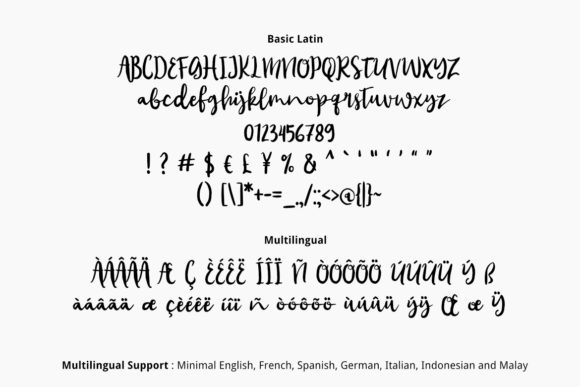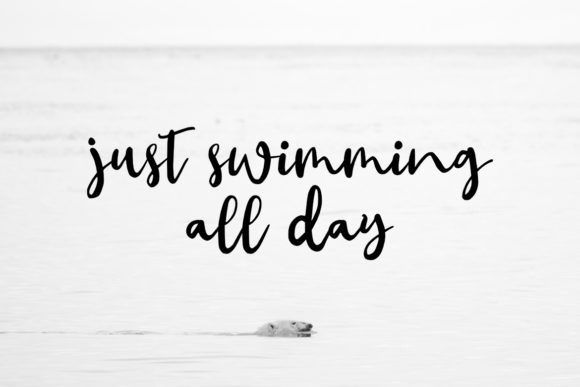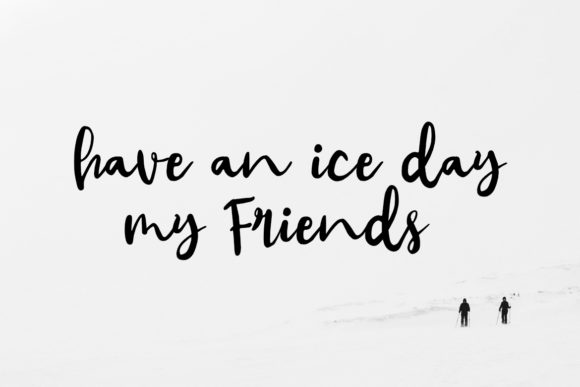
Introduction to Mastah Font
Remember that moment when you’re brainstorming ideas for your next creative project, and you need the perfect font to bring it all together? The one that exudes confidence and character, making your design stand out from the crowd? For designers, finding that elusive font can be a game-changer.
Enter the Mastah Font, a modern, smooth, and trendy handwritten font that’s sure to elevate your design resource. With its strong, confident, and dynamic feel, it’s the perfect addition to any high-quality design project. And the best part? You can download it for free, giving you the freedom to experiment and push the boundaries of your creativity.
Whether you’re working on a personal project or a commercial design, the Mastah Font is an invaluable resource that’s sure to bring a touch of nostalgia and charm to your work. And with its transparent background, it’s perfect for use on a variety of design elements, from logos to social media graphics.
Key Features of Mastah Font
- High-quality design resource with a transparent background, ideal for creative projects
- Large character set with extensive language support for multilingual designs
- Designed with flexibility in mind, suitable for a wide range of creative applications, from logos to graphics
Honest Review: Mastah Font
What works well: ✨ The font’s versatility and unique style make it perfect for various design projects. I’ve used it for logo design, typography, and even graphics. The font’s transparent background is also a huge plus, as it makes it easy to work with and allows for seamless layering.
Here are some of the font’s key features:
- Unique style that sets it apart from other fonts
- Works well on both digital and print projects
What could improve: ⚠️ While Mastah Font is an excellent resource, I’ve noticed that it can be a bit difficult to read at smaller font sizes. Additionally, the font’s unique style may not be suitable for every design project.
Overall impression: I’m thoroughly impressed with Mastah Font. It’s a fantastic addition to any designer’s toolkit and is sure to bring a touch of sophistication to any creative project. Give it a try and see what you think!
Mastah Font is perfect for creating eye-catching titles, headings, and captions for your creative projects. It’s also great for designing social media graphics, blog posts, and presentations.